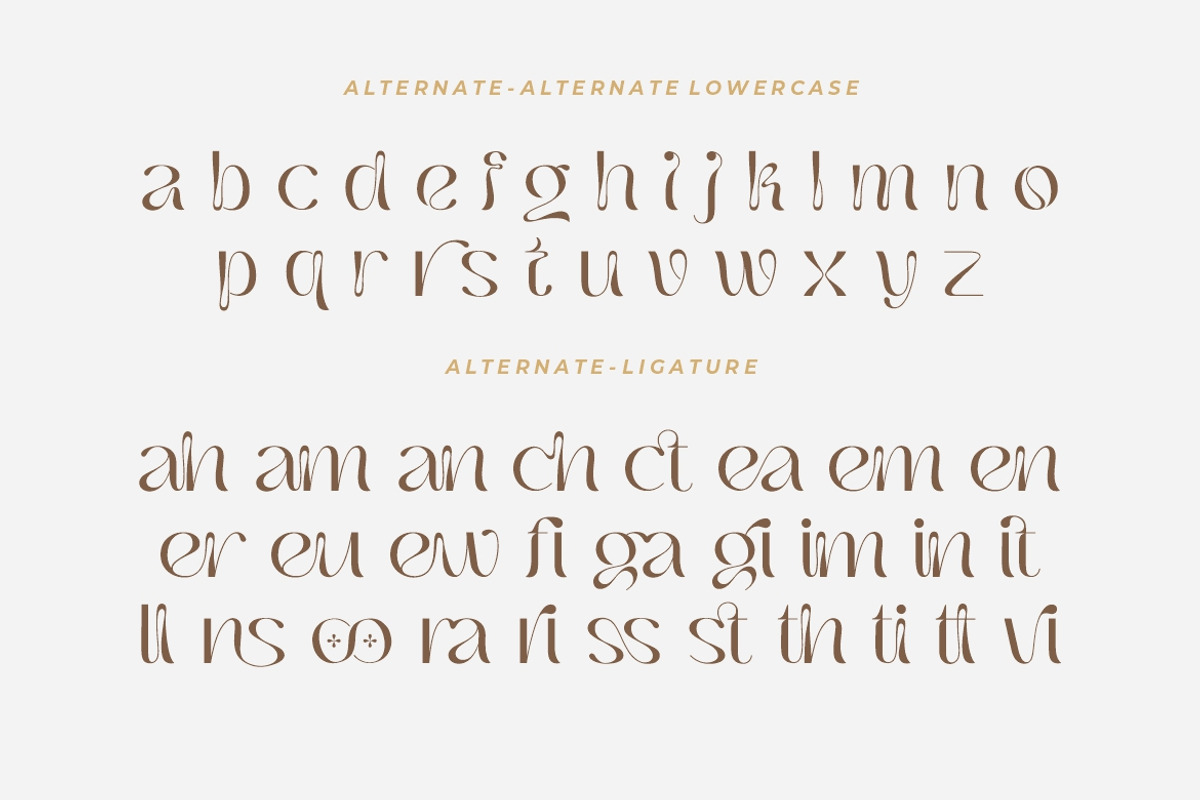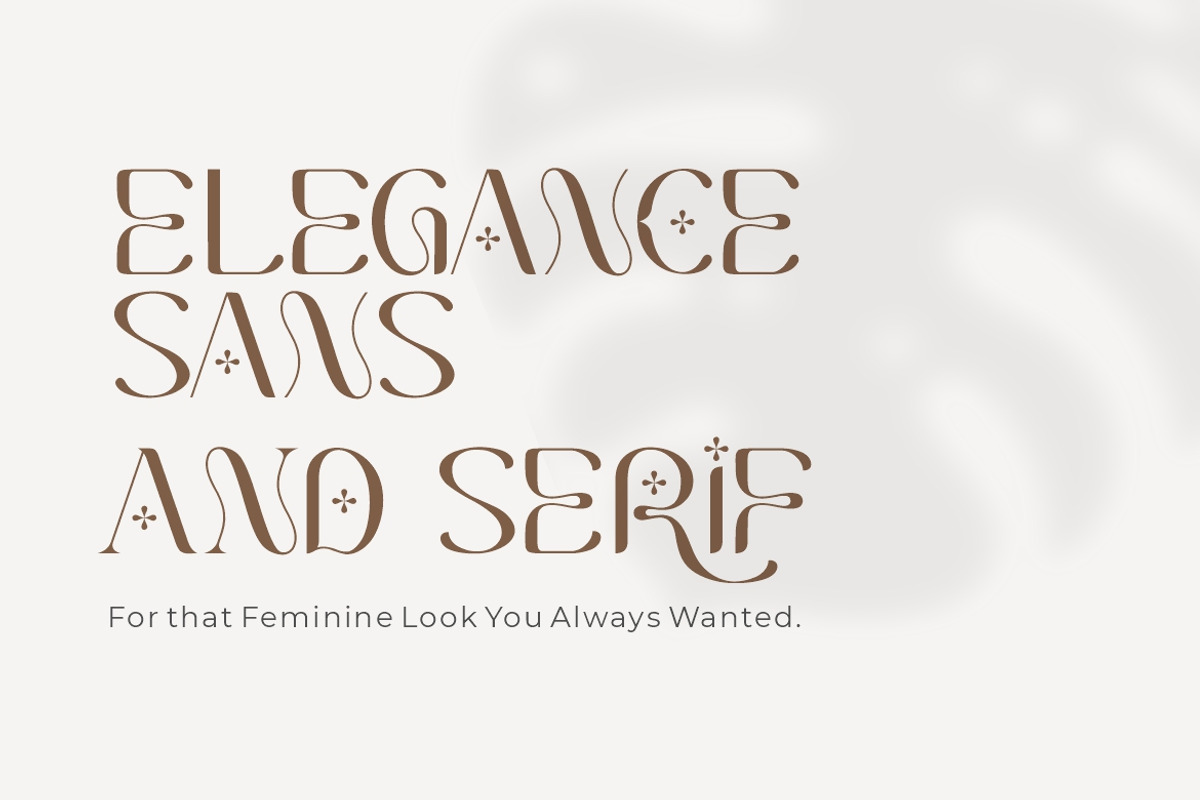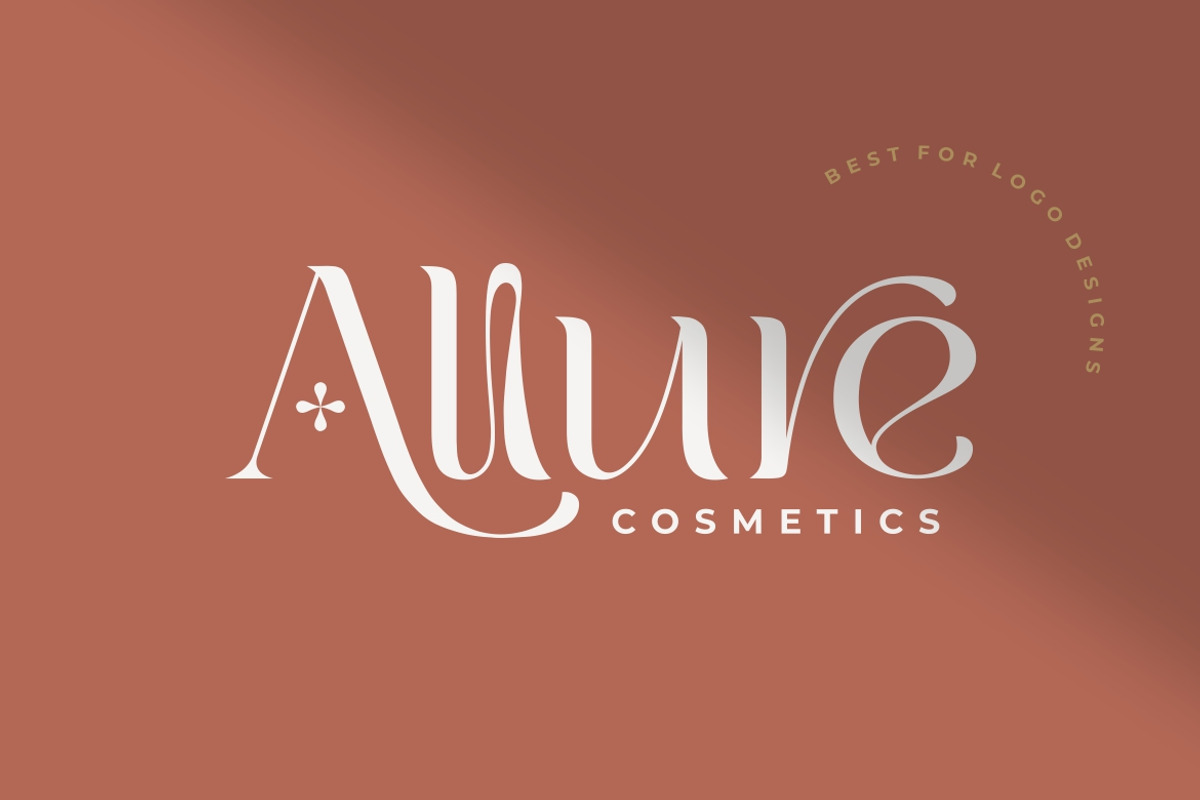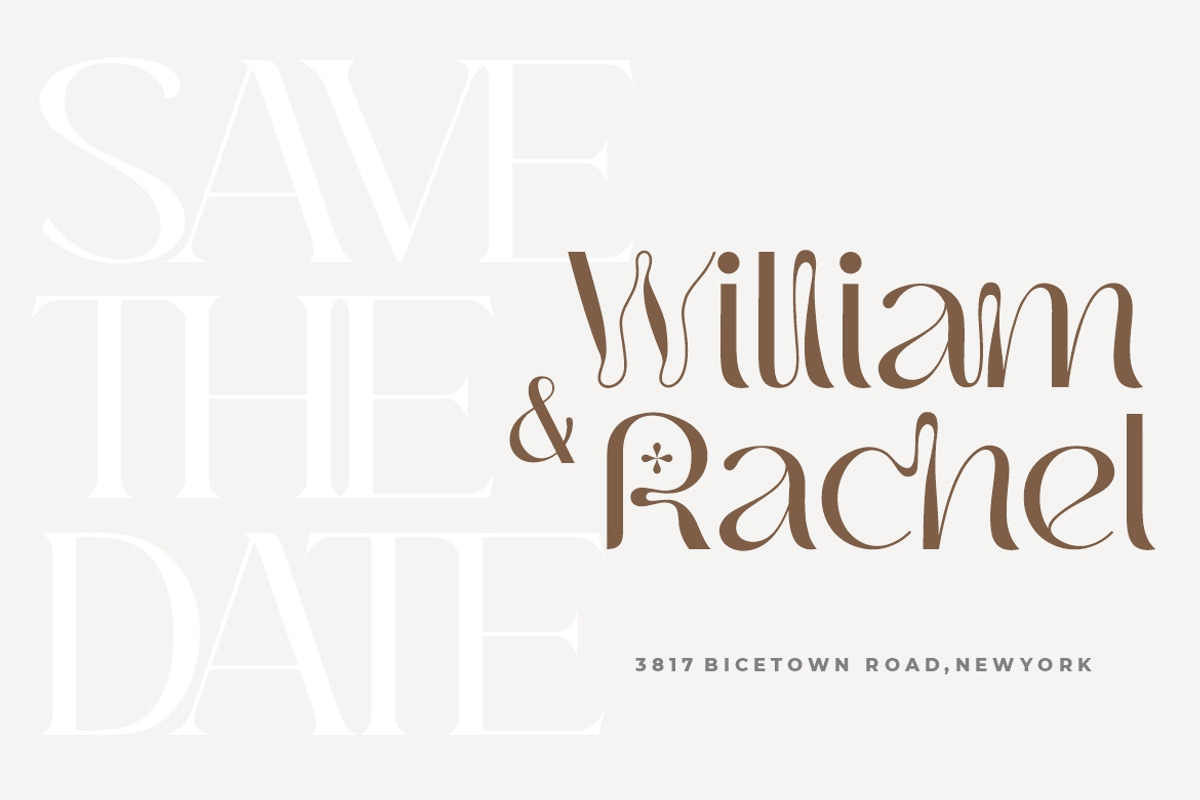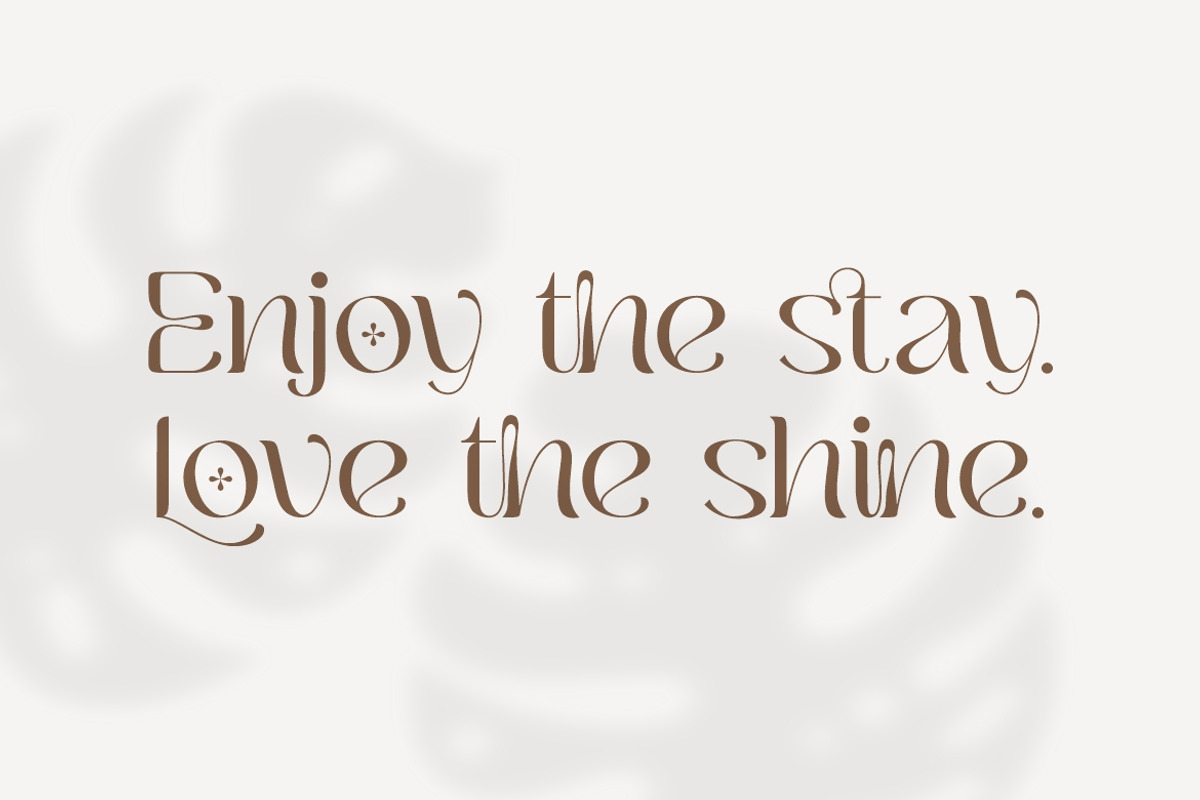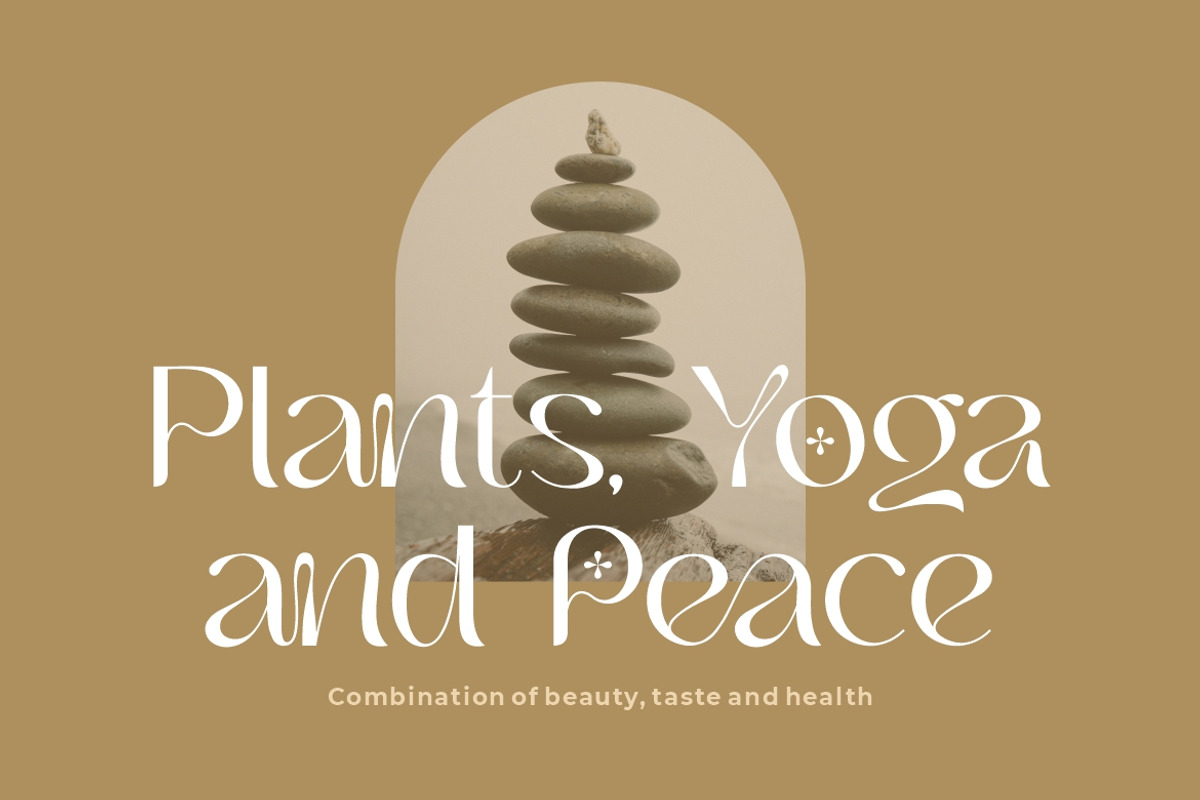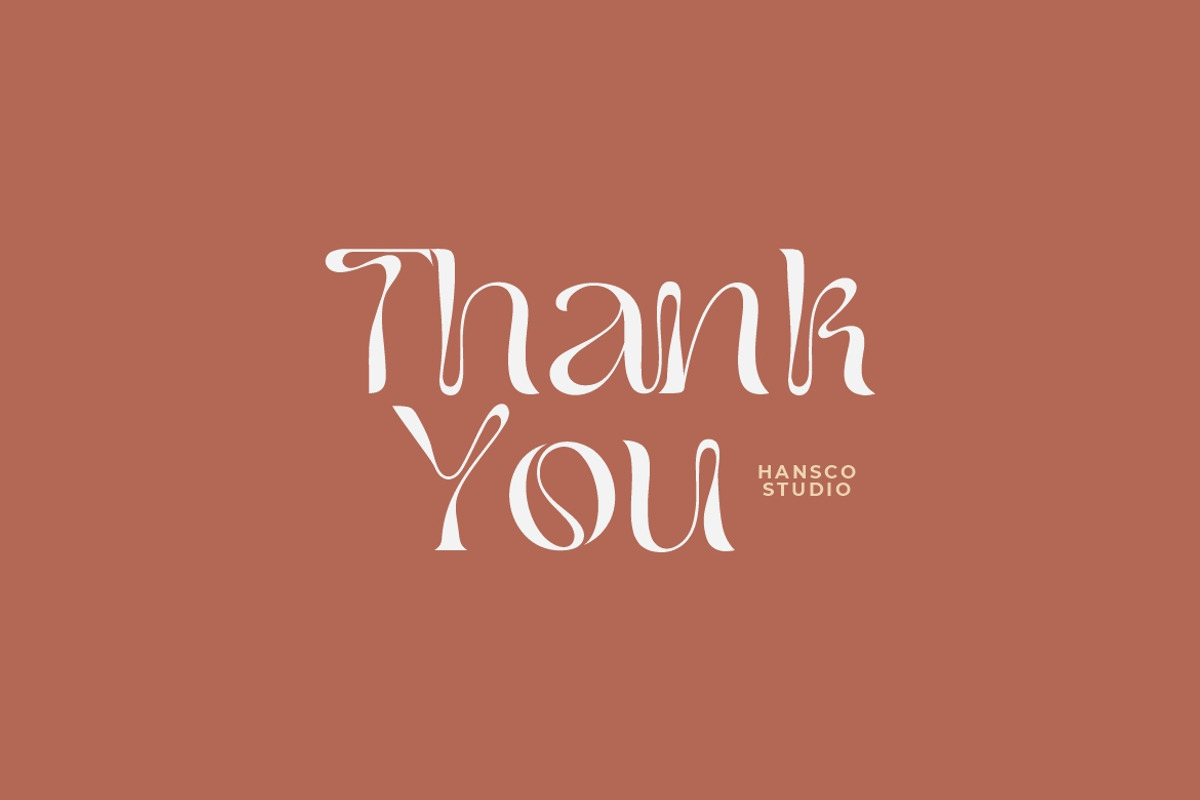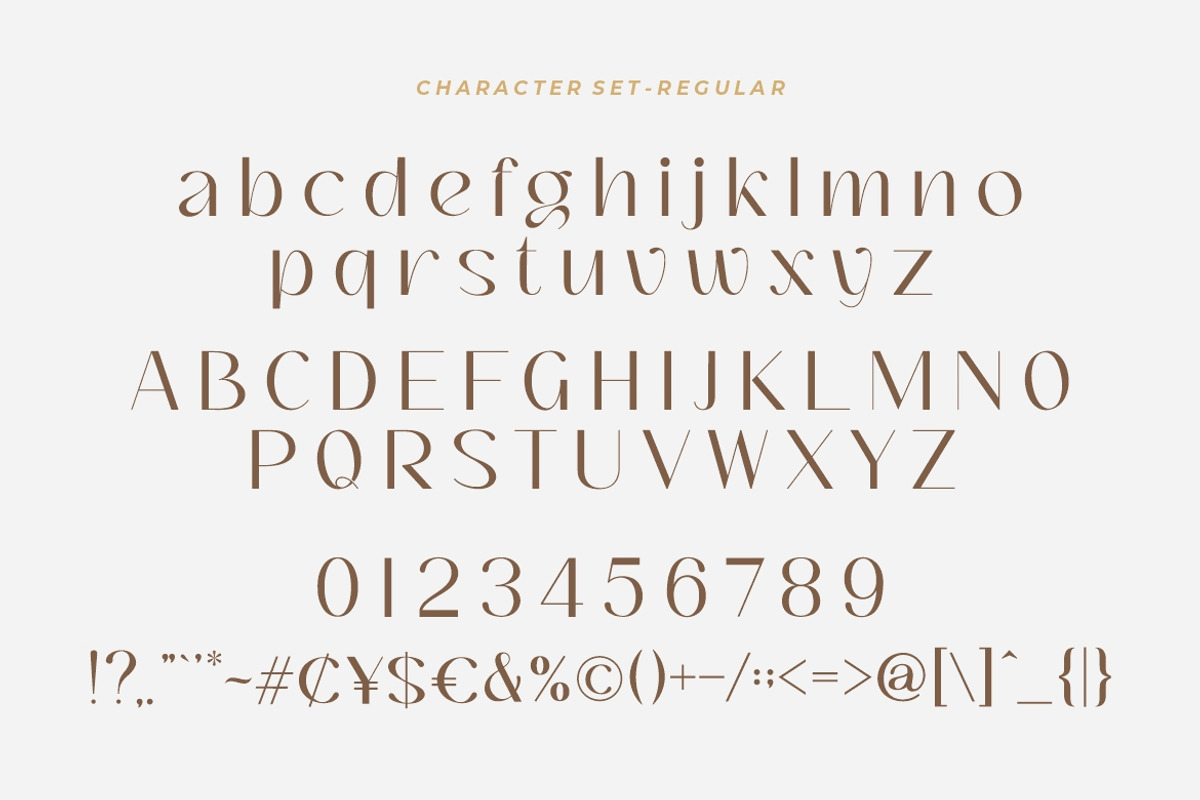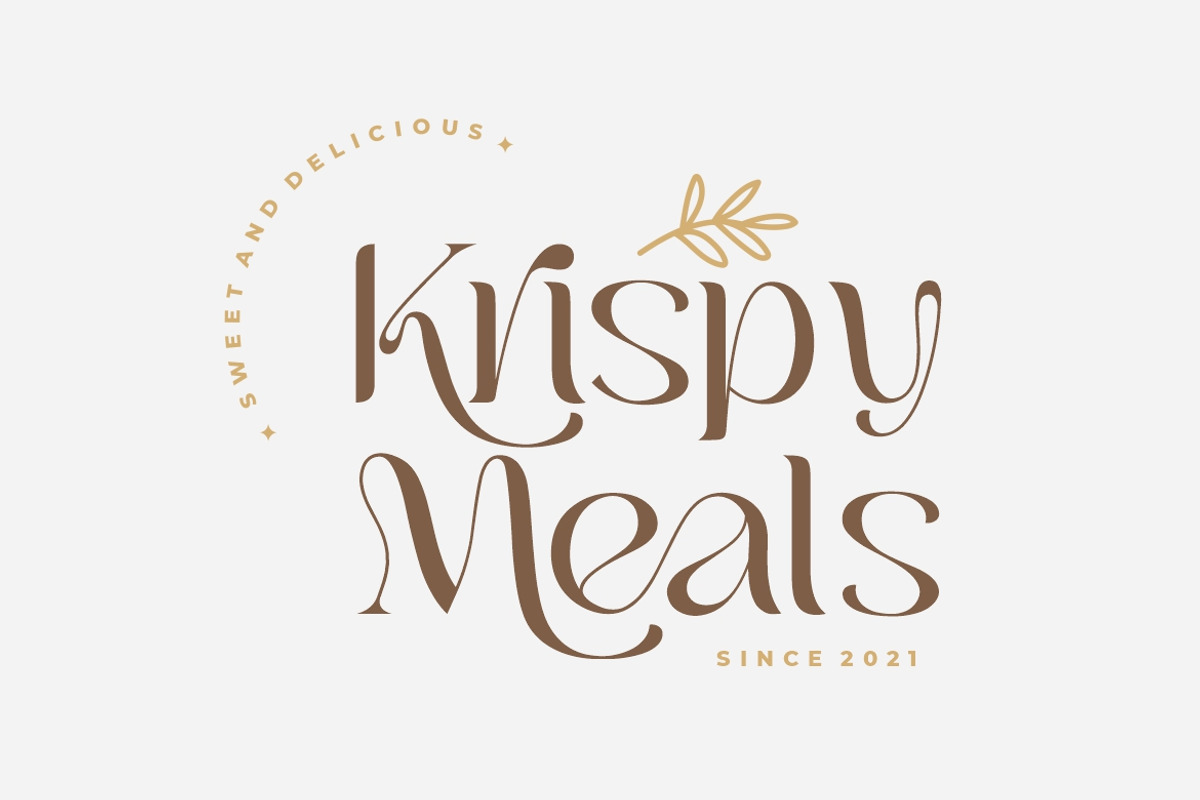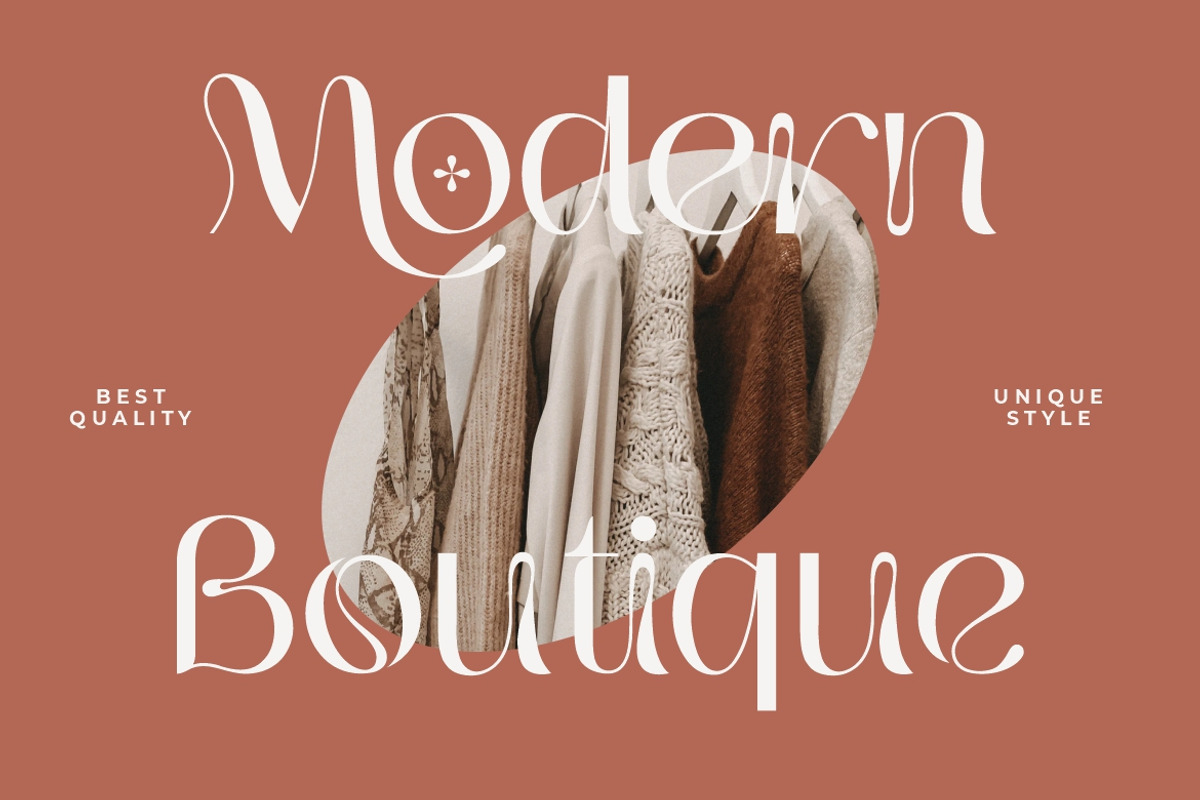
Bochan - Elegant Feminine Font
Bochan is incredibly elegant and beautifully rounded sans serif and also include with serif version font that will add a timeless look to any design project!. Very suitable for logo, brand identity pack, packaging designs and many more..
- alternates